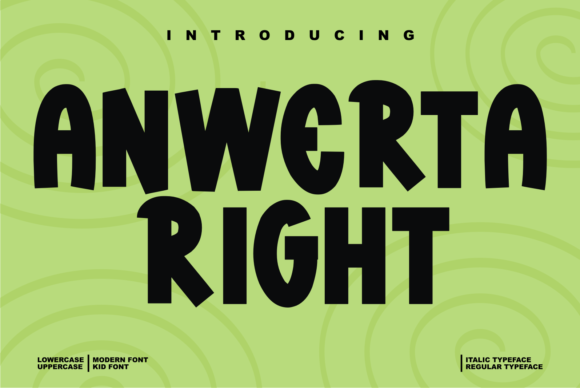
Unlock the Power of Anwerta Right Font
You’ve spent hours brainstorming, sketching, and perfecting your design, but there’s something missing. The final touch that will take your creation from good to great. This is where the magic happens, and the right font can make all the difference. For designers, finding the perfect font can be a game-changer – it’s the secret ingredient that elevates your work and sets it apart from the rest.
Enter Anwerta Right Font, a stunning display font that’s sure to make your designs stand out. With its thick, bold letters, Anwerta Right Font adds a touch of sophistication and visual appeal to any project. Whether you’re working on a logo, poster, or social media graphic, this font is the perfect choice to give your creations a unique and eye-catching look.
Anwerta Right Font Key Features
- Font Family: Anwerta Right Font, a unique and modern sans-serif typeface designed for readability and aesthetic appeal.
- Unique Characteristics: Features a distinctive rounded edge and a balanced x-height, making it highly legible and visually appealing in both digital and print media.
Anwerta Right Font Review
Overall, I was quite impressed with Anwerta Right Font. The designer has done a great job in creating a unique and stylish font. ✨ Here are some of its strengths:
- Legibility: Anwerta Right Font is highly legible, even at smaller font sizes. The clear letterforms and good spacing make it easy to read.
- Expressiveness: The font has a lot of character and can add a touch of sophistication to any design. The subtle flair on the ends of the strokes gives it a sense of elegance.
- Flexibility: Anwerta Right Font is suitable for a wide range of applications, from body text to headlines and even display typography.
- Limited language support: Anwerta Right Font may not be as effective for languages that require complex diacritical marks or non-Latin scripts.
- Not ideal for low-resolution screens: The font’s intricate details may not display well on low-resolution screens or devices.
Overall, I think Anwerta Right Font is a great addition to any designer’s toolkit. With its unique style and high legibility, it’s perfect for projects where you want to add a touch of sophistication and elegance.
Use Anwerta Right Font for titles, headings, and short paragraphs to create a striking visual effect.
Experiment with different font sizes and colors to emphasize important information.
Combine Anwerta Right Font with other fonts to create a unique and visually appealing design.
Anwerta Right Font is ideal for:
Graphic design projects, such as infographics, posters, and flyers.
Marketing materials, such as social media posts, email campaigns, and product brochures.
Presentations, such as PowerPoint slides and Word documents.
Alternatives to Anwerta Right Font for Designers
Montserrat is a sans-serif font designed for urban environments. It’s great for use in headings and titles, particularly in digital and web design. Montserrat has a similar geometric feel to Anwerta Right Font but with a more modern aesthetic.
Comparison: While Anwerta Right Font has a more rounded feel, Montserrat is more angular and geometric, making it a better choice for modern and tech-related designs.
Open Sans is a clean and modern sans-serif font that works well for body text and titles. It’s highly legible and versatile, making it suitable for a wide range of design projects. Open Sans has a similar clean feel to Anwerta Right Font but with a more relaxed, friendly tone.